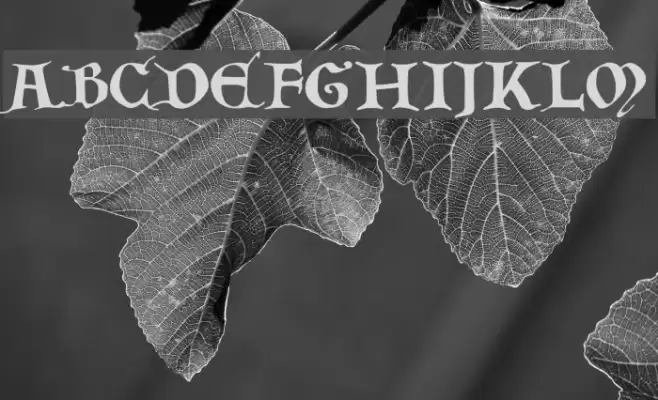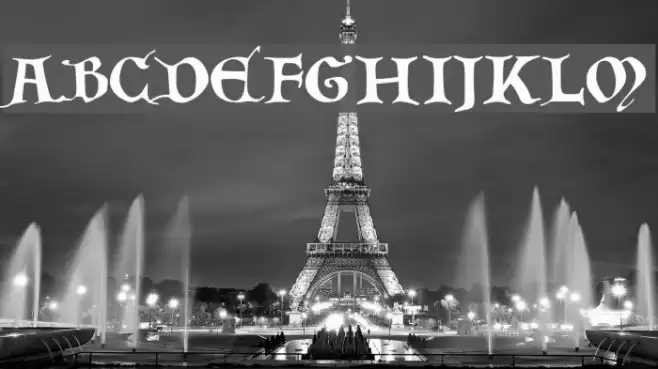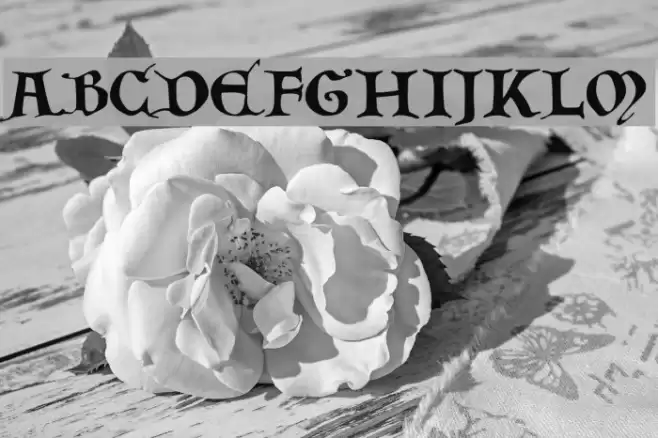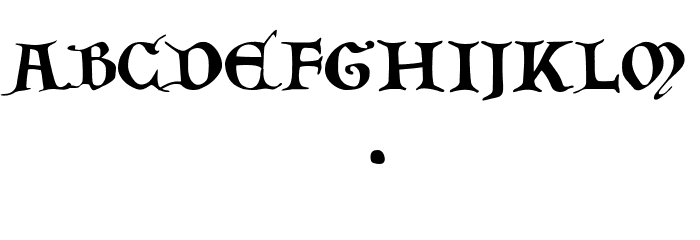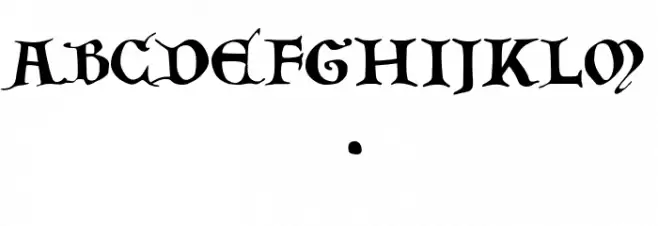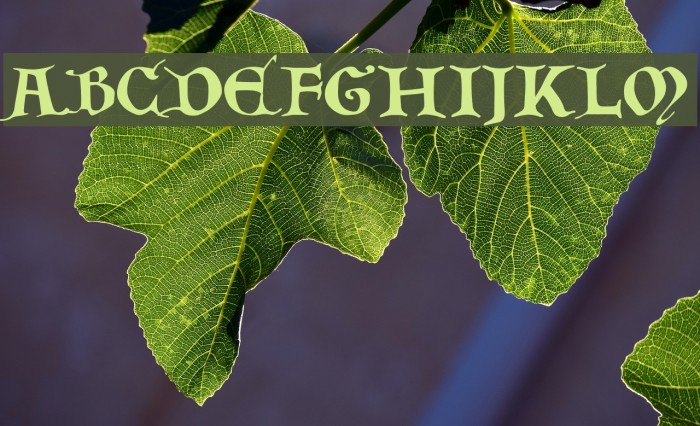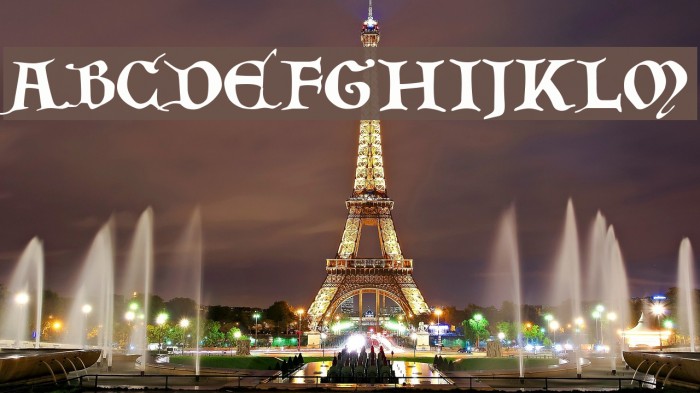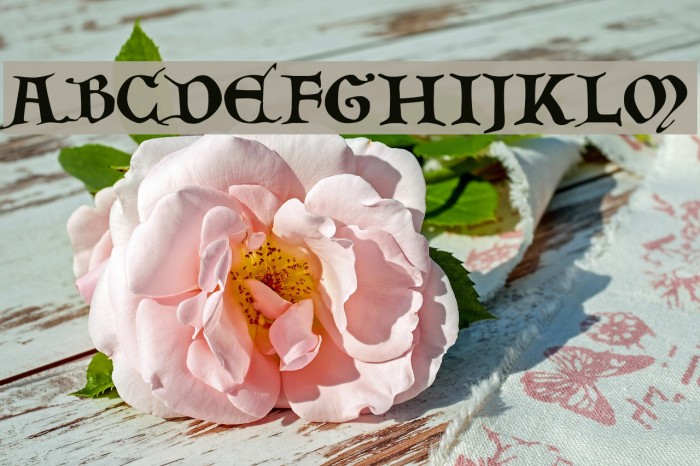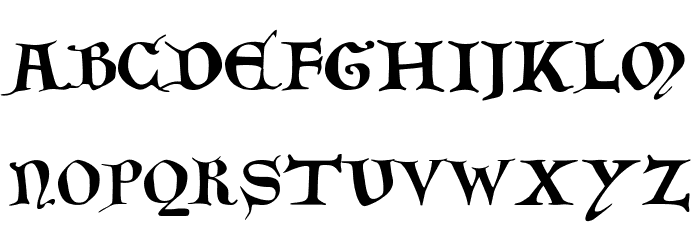
Tabula-Peutingeriana---Capitel-Bold-Italic Font
Tabula-Peutingeriana---Capitel-Bold-Italic Description
This font features a bold and italicized style with a distinct blackletter influence, characterized by its dramatic and ornate letterforms. The strokes are thick and pronounced, with sharp angles and decorative flourishes that evoke a sense of historical elegance. Each character is uniquely crafted, with a consistent weight that enhances its bold appearance. The italic slant adds a dynamic and flowing quality, making it suitable for projects that require a touch of sophistication and tradition. The overall design is reminiscent of medieval script, offering a vintage yet timeless appeal.
A bold, italicized blackletter-inspired font with ornate and dramatic letterforms from Uncategorized fonts.
- Proposed Projects: Ideal for historical documents, invitations, posters, and branding that require a vintage or medieval aesthetic.
- Overall Style: Vintage